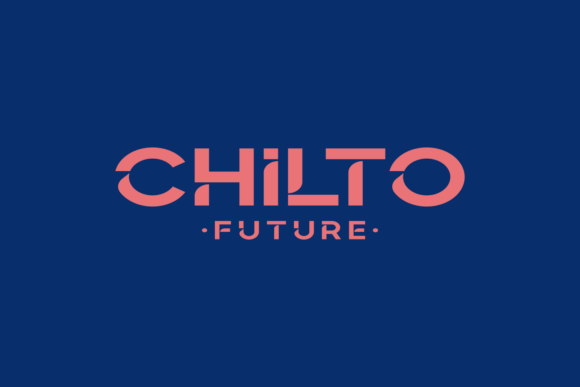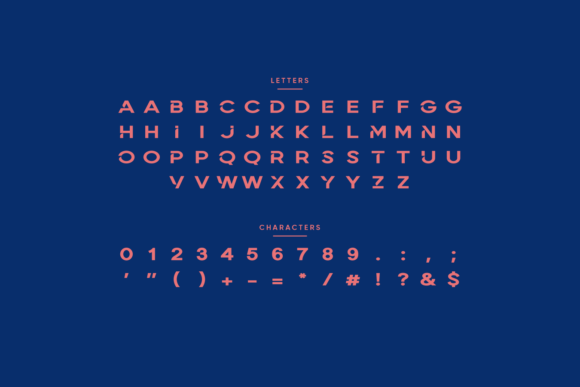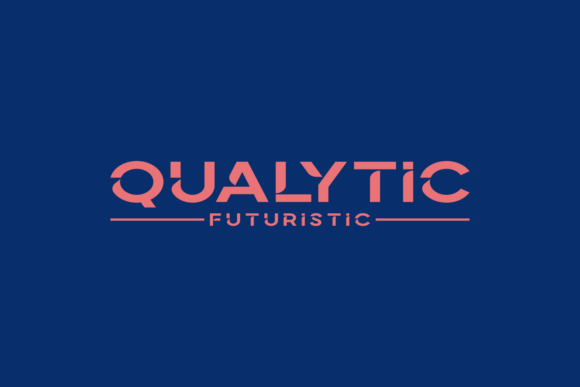
Introducing Ghostac: A Revolutionary Display Typeface for Building Brand Identity
In the world of typography, a new generation of typefaces is emerging, and Ghostac is at the forefront of this revolution. Designed with the vision of attracting audiences to your brand, Ghostac is a display typeface that embodies the perfect blend of style, sophistication, and mathematical precision. This cutting-edge font is meticulously crafted to cater to the diverse needs of designers, crafters, and brands seeking to establish a strong visual identity.
The Genesis of Ghostac
Ghostac Typeface was born out of a passion to create a font that would excel in various applications, from corporate branding to digital advertising. The creators of Ghostac poured their hearts and souls into this project, driven by a commitment to deliver a typeface that would meet the evolving demands of the design industry. With a focus on precision and attention to detail, Ghostac is poised to become a go-to font for designers seeking to create stunning brand identities.
Key Features of Ghostac
So, what sets Ghostac apart from other typefaces? Here are some of its key features:
• Mathematical Precision: Ghostac’s design is rooted in mathematical precision, ensuring that every curve, line, and detail is meticulously crafted to create a visually stunning font.
• Versatility: Ghostac is designed to be versatile, making it suitable for a wide range of applications, including branding, logos, titles, headlines, banners, posters, screens, digital ads, and more.
• Corporate Font: Ghostac is equipped with all the features of a corporate font, making it an excellent choice for businesses seeking to establish a professional brand image.
Applications of Ghostac
Ghostac’s versatility makes it an excellent choice for various design projects, including:
• Branding: Create a lasting impression with Ghostac’s unique and stylish font, perfect for logos, business cards, and letterheads.
• Digital Advertising: Make your digital ads stand out with Ghostac’s bold and attention-grabbing font, designed to captivate audiences.
• Print Materials: Elevate your print materials, such as brochures, flyers, and posters, with Ghostac’s elegant and sophisticated font.
Why Choose Ghostac?
With so many typefaces available, why choose Ghostac? Here are a few compelling reasons:
• Unique Design: Ghostac’s mathematical precision and attention to detail make it a one-of-a-kind font that will set your brand apart.
• Time-Saving: With Ghostac’s versatility and comprehensive feature set, designers can save time and effort, focusing on creativity rather than font customization.
• Professionalism: Ghostac’s corporate font features ensure that your brand image exudes professionalism and sophistication.
The Future of Ghostac
As a long-term project, Ghostac is continuously evolving to meet the changing needs of designers and brands. With a commitment to delivering exceptional quality and innovation, the creators of Ghostac are dedicated to:
• Continuous Improvement: Regular updates and refinements to ensure Ghostac remains at the forefront of typography.
• Expanded Features: Plans to add new features and styles to Ghostac, further enhancing its versatility and usability.
In conclusion, Ghostac is a revolutionary display typeface that is poised to transform the world of brand identity and design. With its unique design, versatility, and attention to detail, Ghostac is an excellent choice for designers and brands seeking to create a lasting impression. Join the Ghostac community today and experience the future of typography.